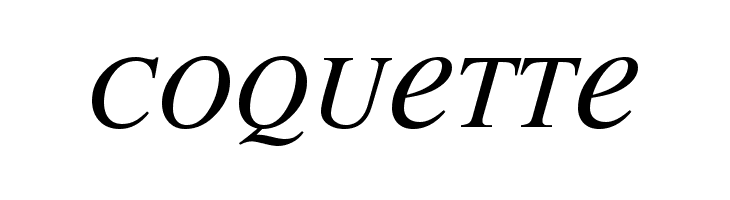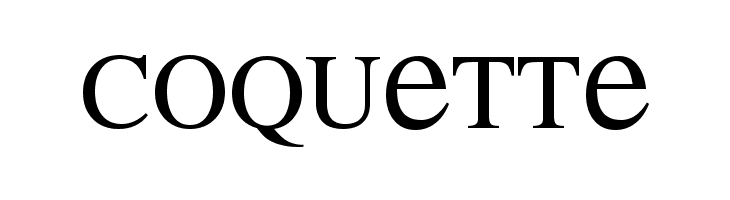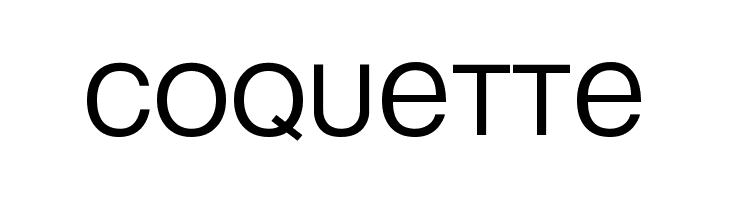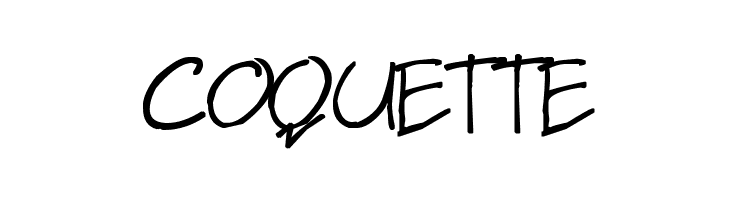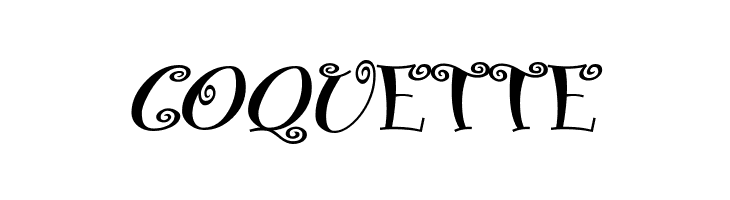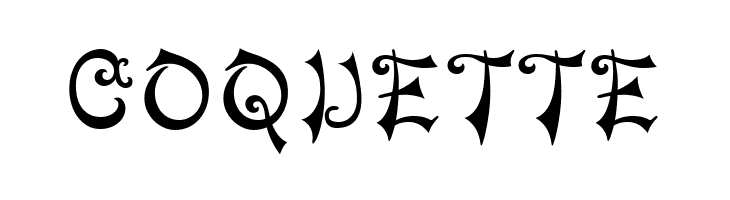
A decorative font with gothic-inspired serifs and intricate detailing.
A whimsical and decorative font with curly, playful elements.
A lively, handwritten font with fluid strokes and a personal touch.
An elegant italic serif font with smooth, flowing lines and moderate contrast.
A modern, geometric sans-serif font with clean lines and excellent readability.
A classic serif typeface with elegant, readable characters and balanced stroke contrast.